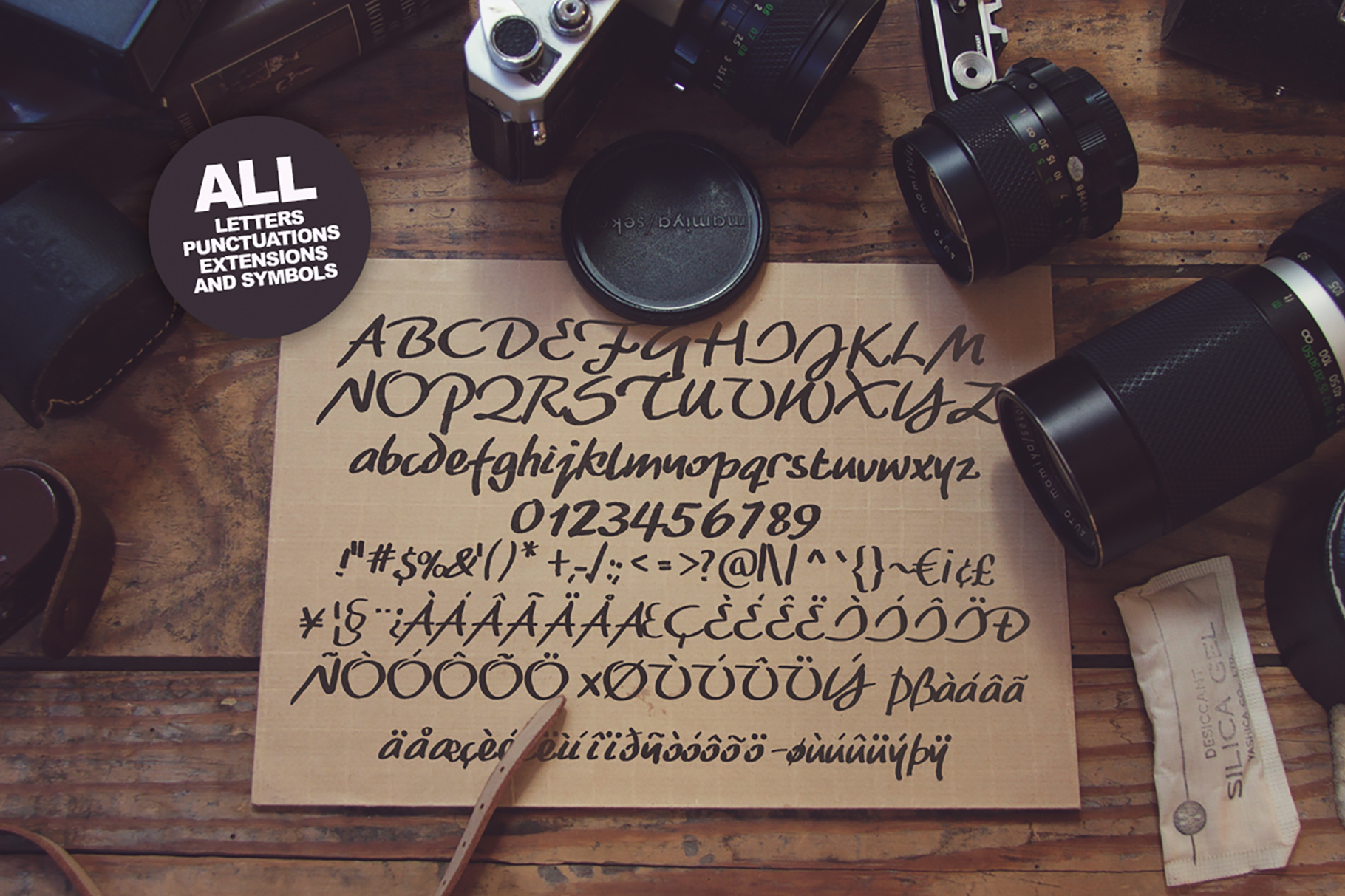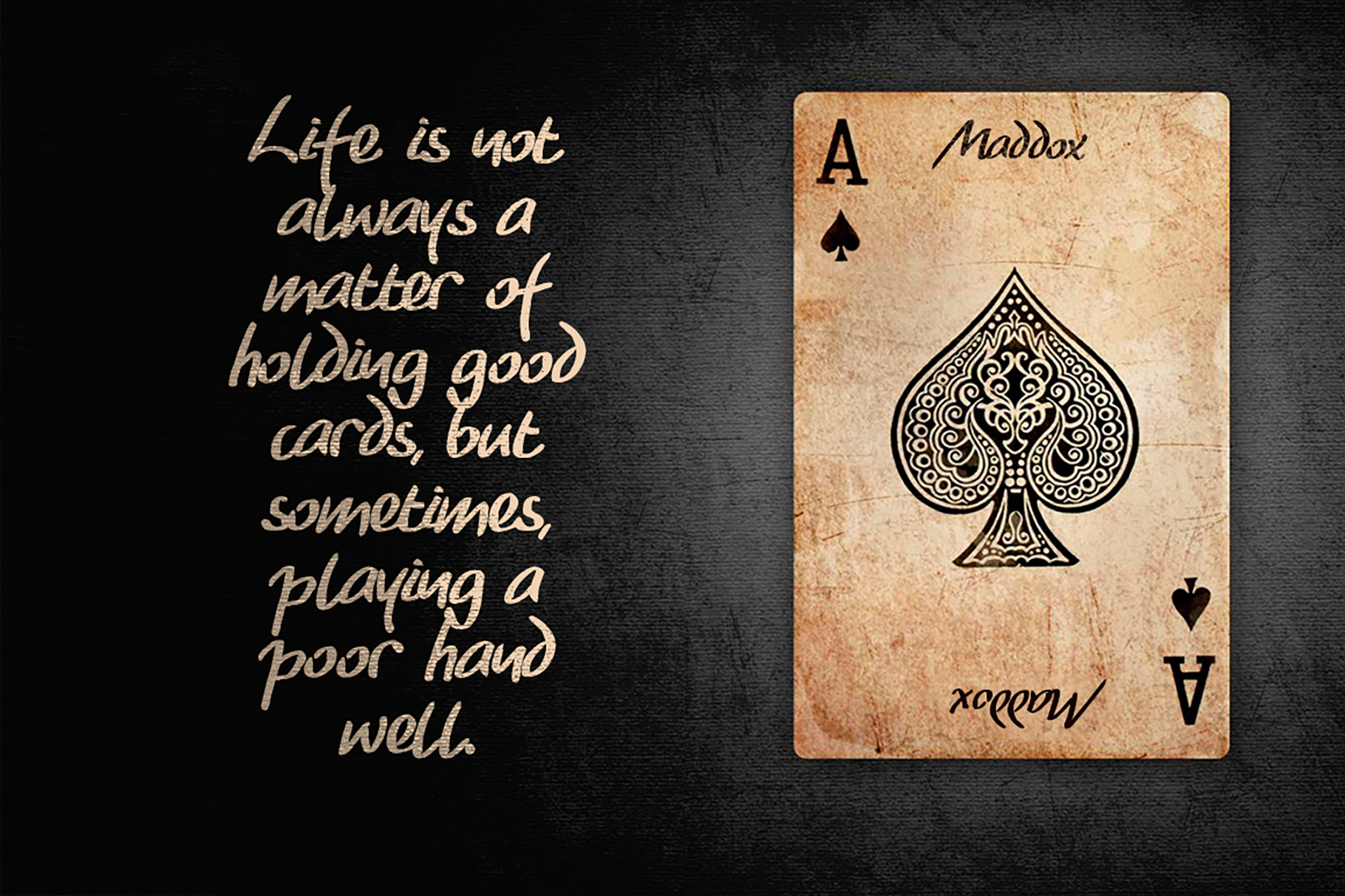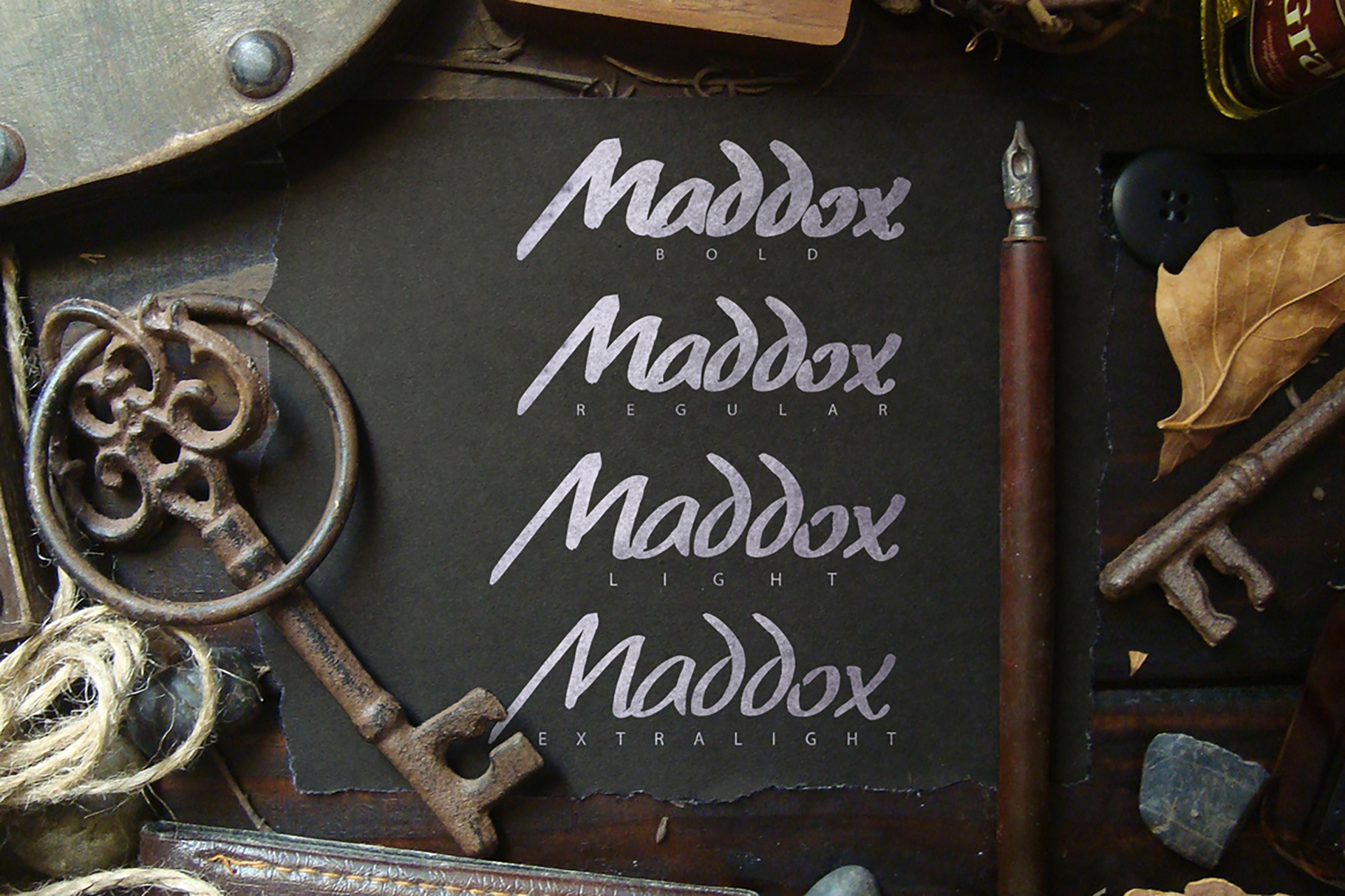
Maddox is a hand brushed script family that comes with 4 beautiful fonts.
All letters. All numbers. All punctuations. All extensions. All symbols.
Languages: Albanian, Basque, Catalan, French, Italian, Polish, Breton, Chamorro, Danish, Dutch, English, Finnish, Frisian, Galician, German, Malagasy, Norwegian, Portuguese, Spanish, Swedish